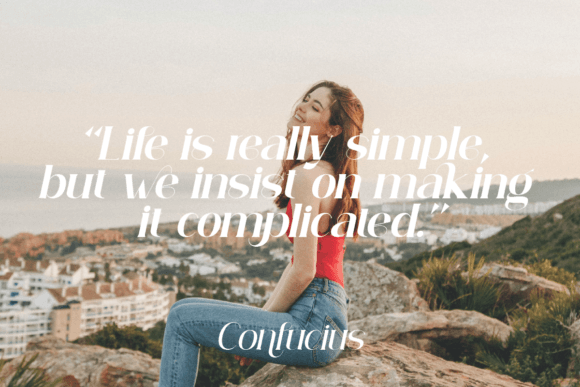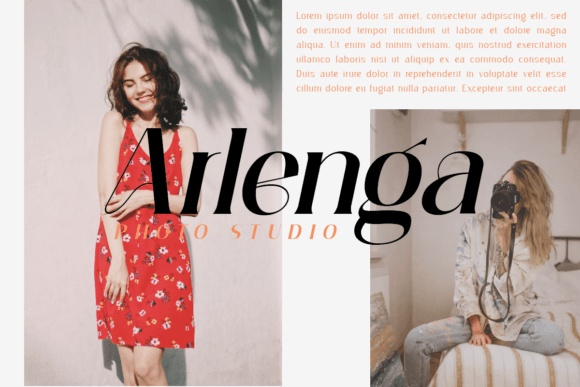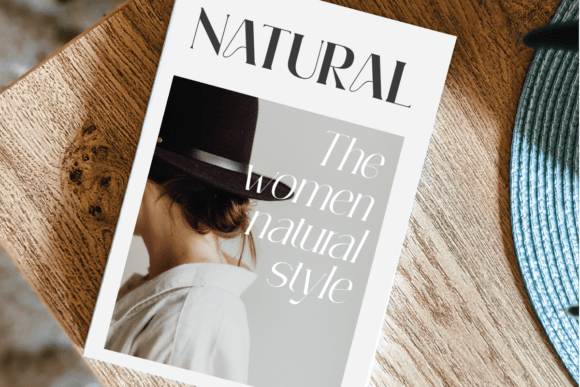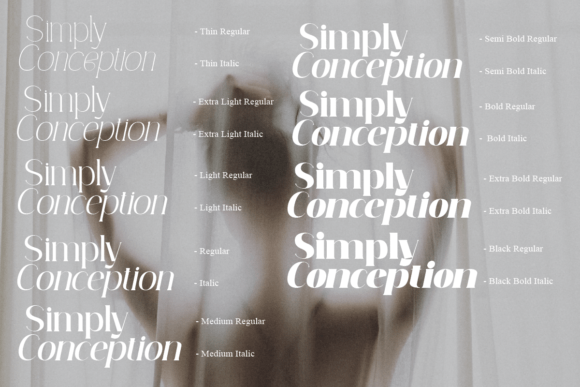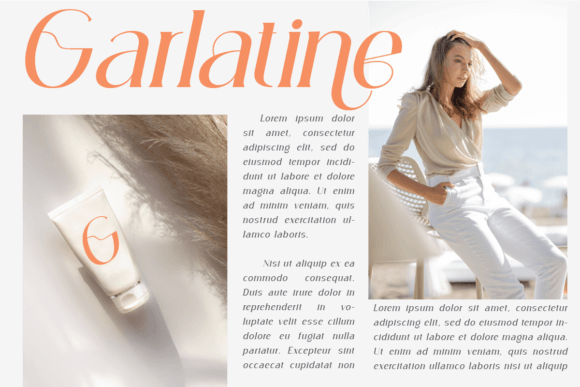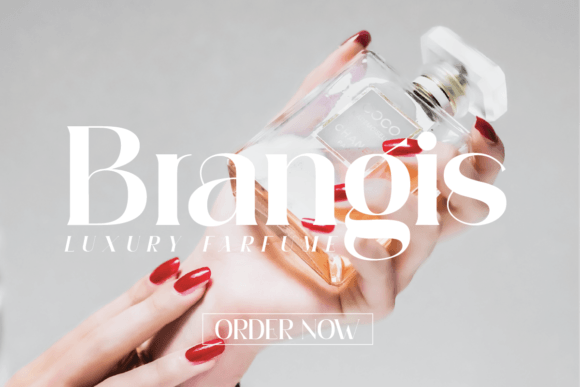
Introduction to Simply Conception Font
You know that moment when a design idea strikes you, and you can’t wait to bring it to life? It’s like a spark of creativity that sets your imagination ablaze. For many designers, finding the perfect font to match that vision can be a challenge. That’s why we’re excited to introduce you to the Simply Conception Font, a modern and stylish serif font that’s sure to become your go-to design resource.
With its incredibly versatile style, the Simply Conception Font is perfect for a wide range of creative projects, from gorgeous wedding invitations to beautiful stationery art and eye-catching social media posts. Whether you’re a seasoned designer or just starting out, this font is a valuable addition to your design toolkit. Plus, with a transparent background and free download available, you can start using it right away.
- Unique, modern design with a transparent background, allowing for flexible placement and composition
- Perfect for designers and artists working on projects requiring a clean, minimalist aesthetic
Honest Review: Simply Conception Font
As a designer, I’m always on the lookout for high-quality design resources to elevate my creative projects. The Simply Conception Font caught my attention with its elegant and modern aesthetic. Here’s my honest review.
- ✨ Elegant and modern design that’s perfect for creative projects.
- ✨ Transparent background, making it easy to use with different design elements.
- ⚠️ Limited character set, which might be a concern for those who need a wide range of characters.
- ⚠️ Not as customizable as some other fonts, which might be a drawback for designers who like to fine-tune their fonts.
Overall, I’m impressed with the Simply Conception Font’s clean and sophisticated design. While it has some limitations, it’s a great addition to any design library, especially for those who are looking for a high-quality font for their creative projects. I’d definitely recommend it as a design resource.
Simply Conception Font
The Simply Conception Font is perfect for creating eye-catching titles, headings, and logos for your creative projects. Use it in brochures, flyers, posters, and more to add a touch of elegance and sophistication.